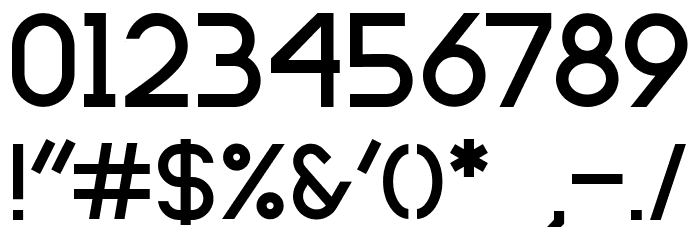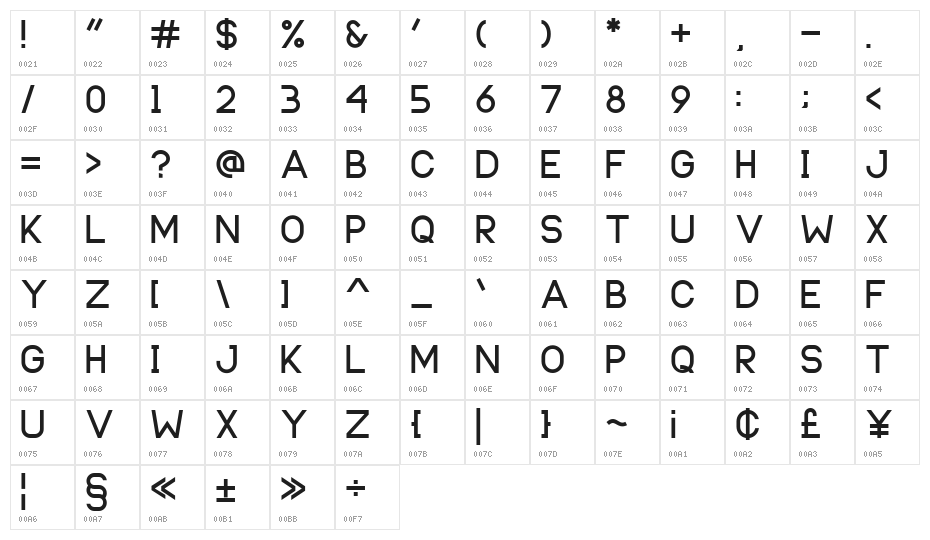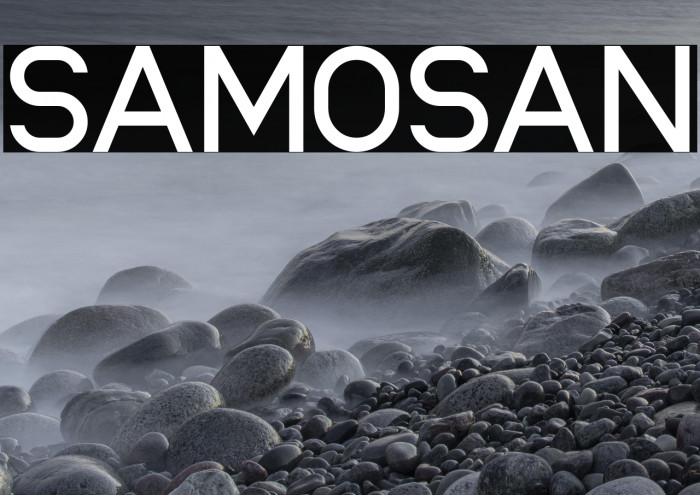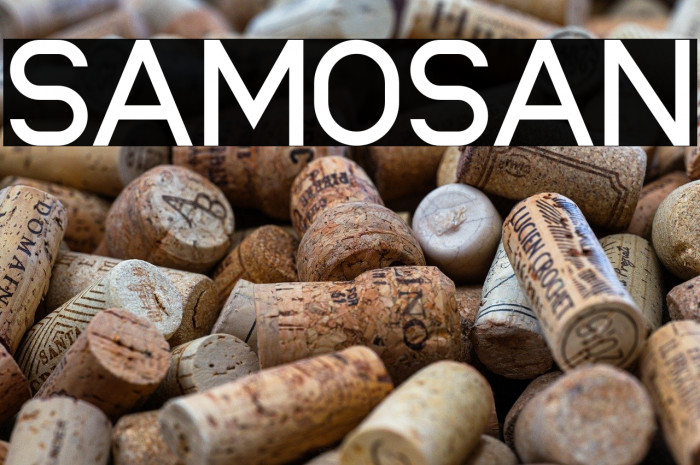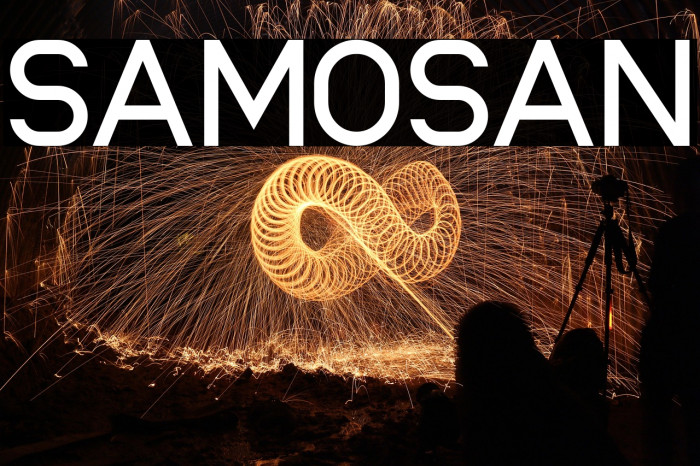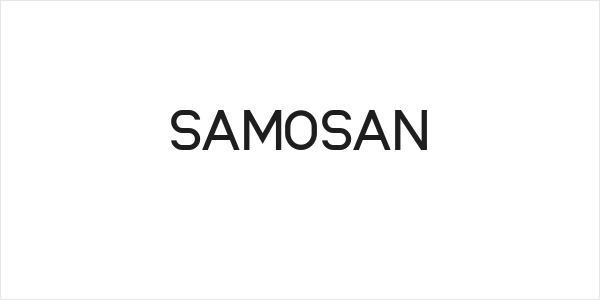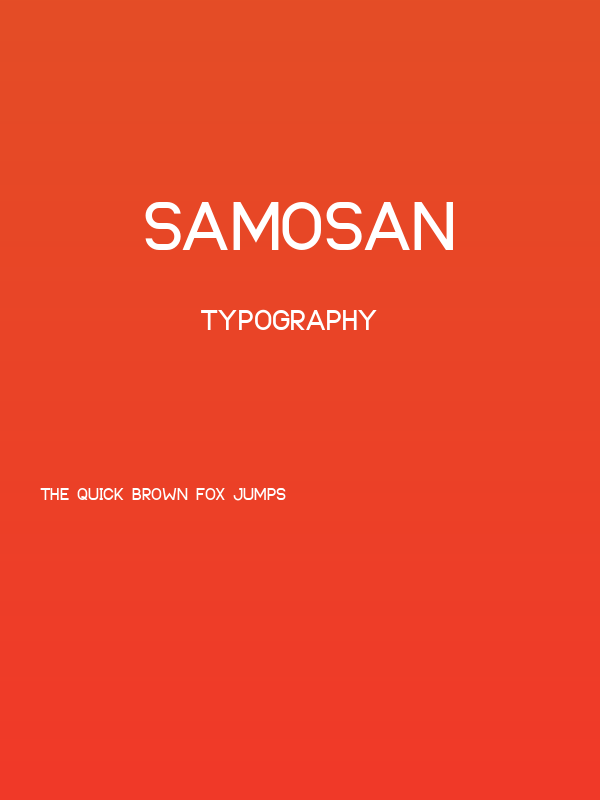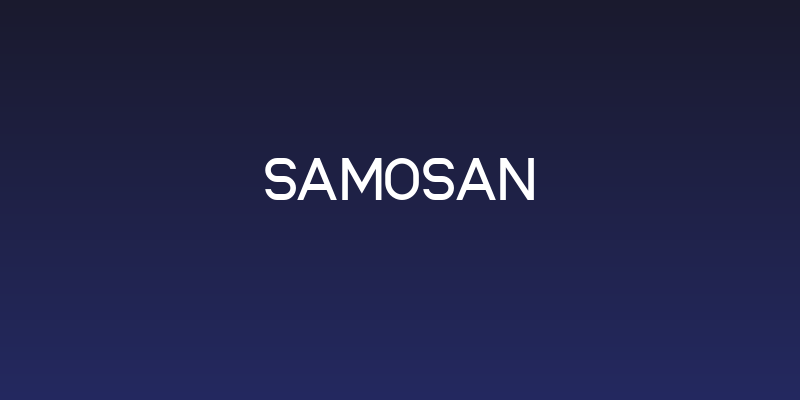
samosan Font
samosan Description
This font features a clean and modern sans-serif style with uniform stroke widths, giving it a sleek and contemporary appearance. The characters are well-proportioned, with a geometric influence that is evident in the symmetrical shapes of the letters and numbers. The uppercase and lowercase letters maintain a consistent height, contributing to a harmonious and balanced look. The numerals are clear and easy to read, making them suitable for various applications. Special characters are designed with the same attention to detail, ensuring they blend seamlessly with the rest of the typeface. The overall design is minimalistic, making it versatile for both digital and print media.
| Proposed Projects | Ideal for branding, web design, advertising, and editorial layouts. |